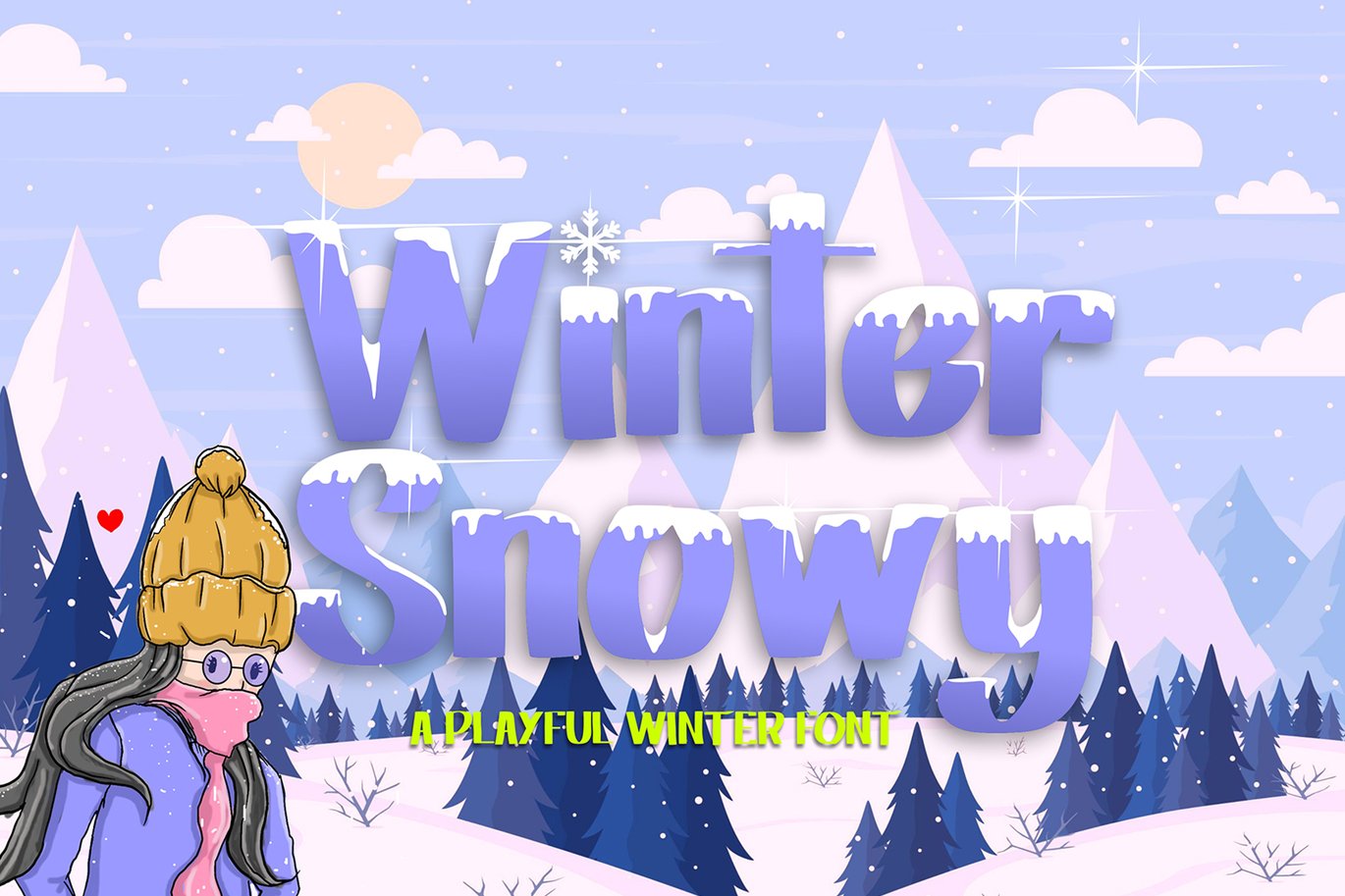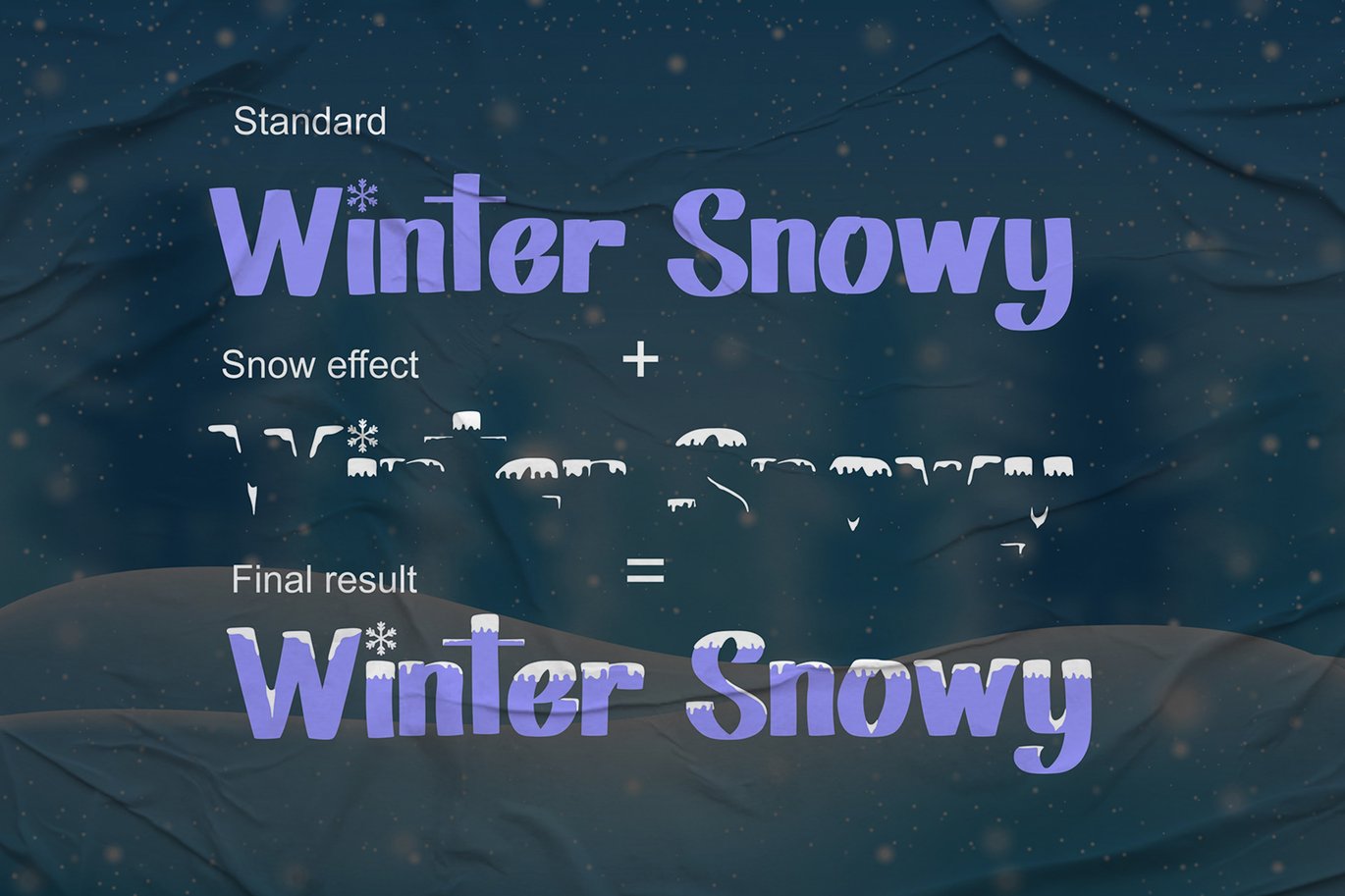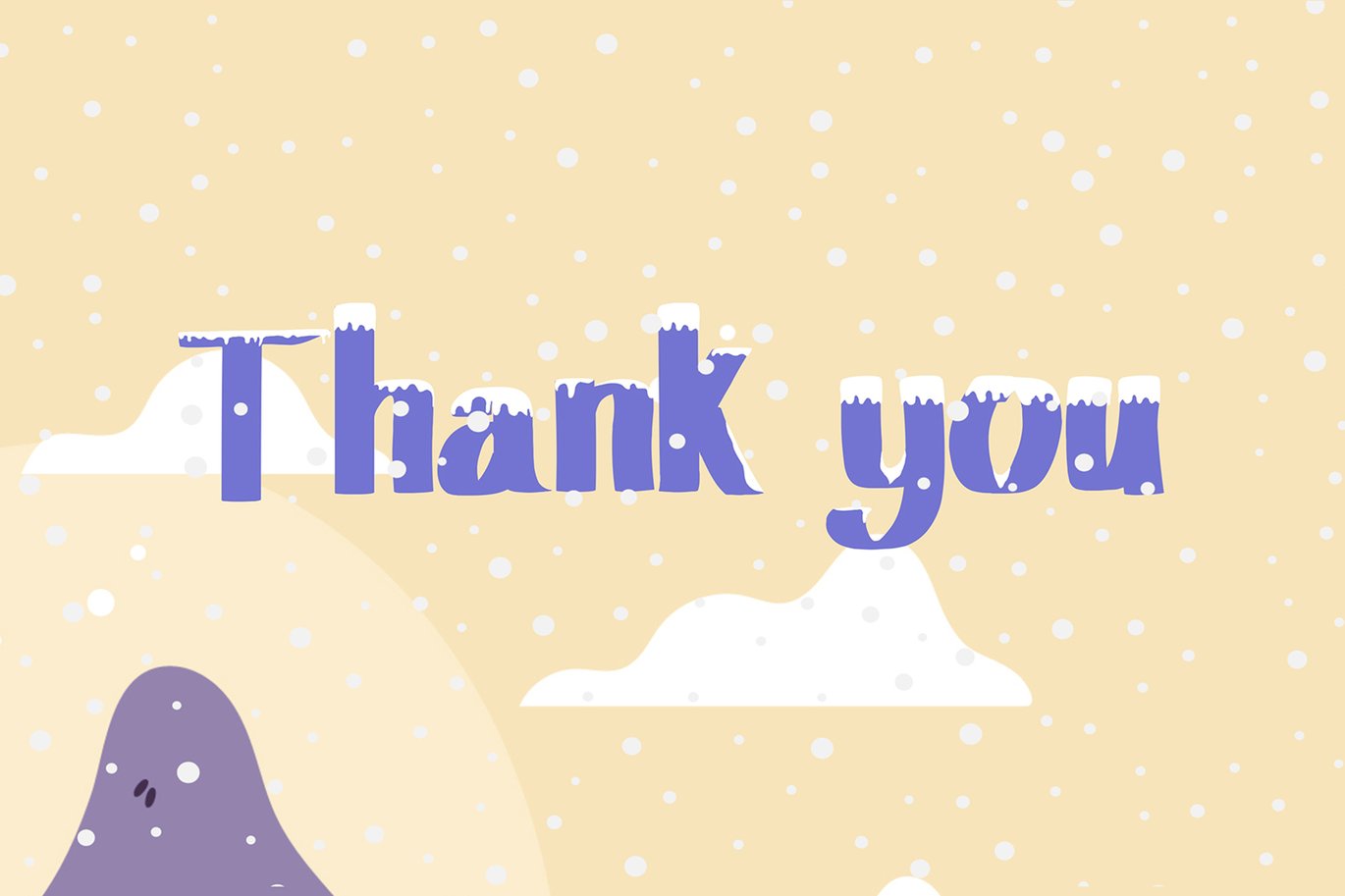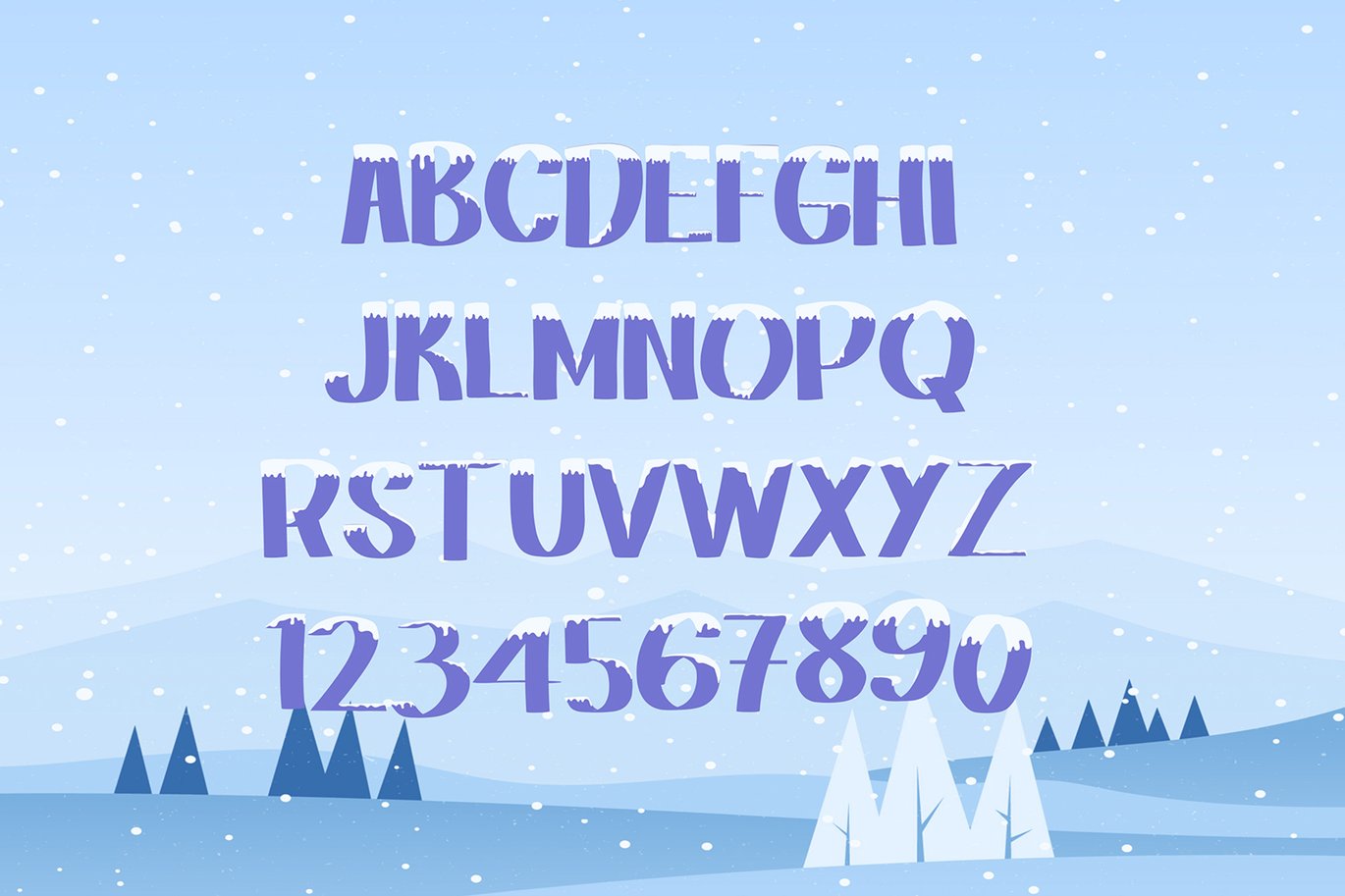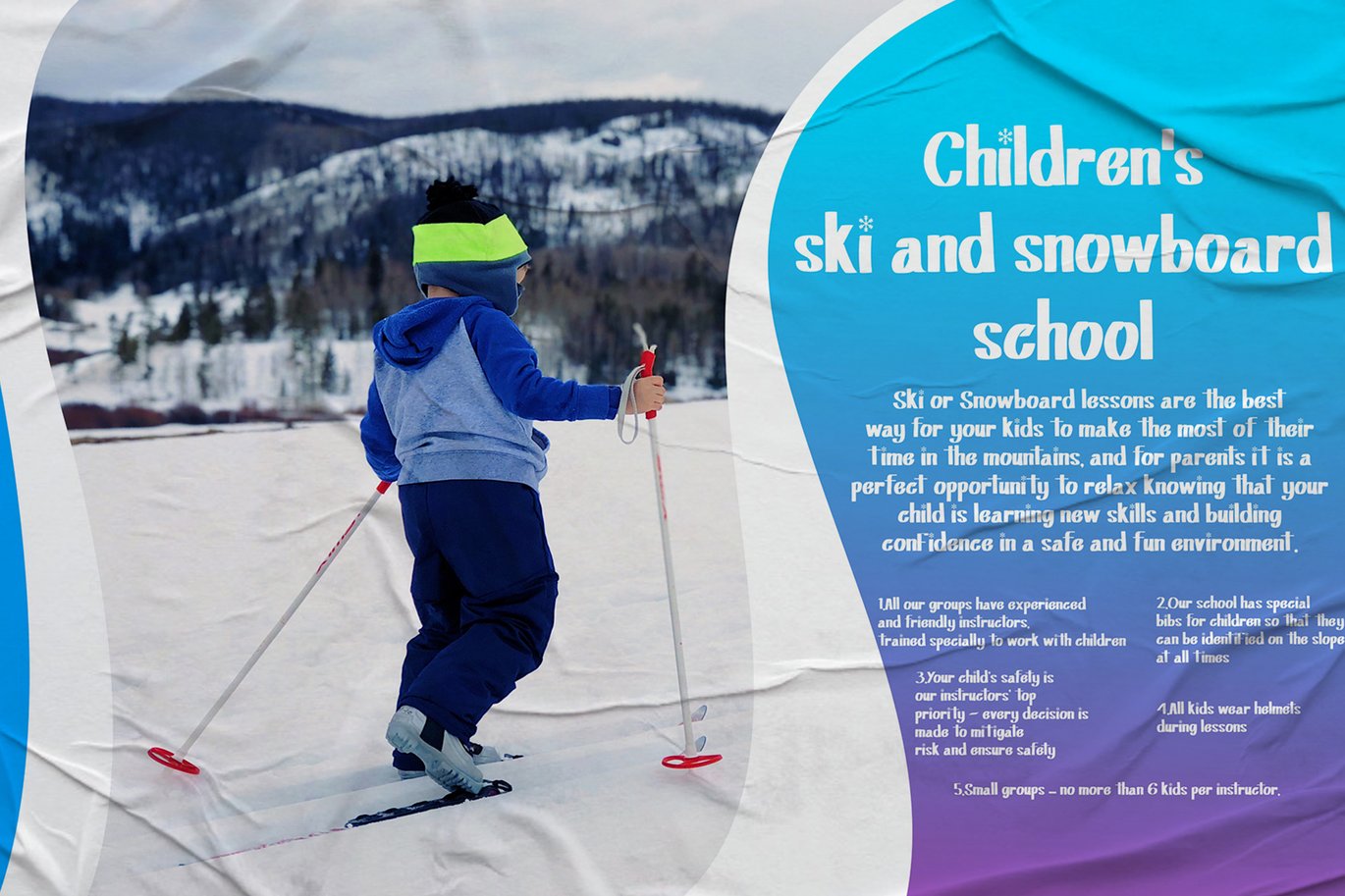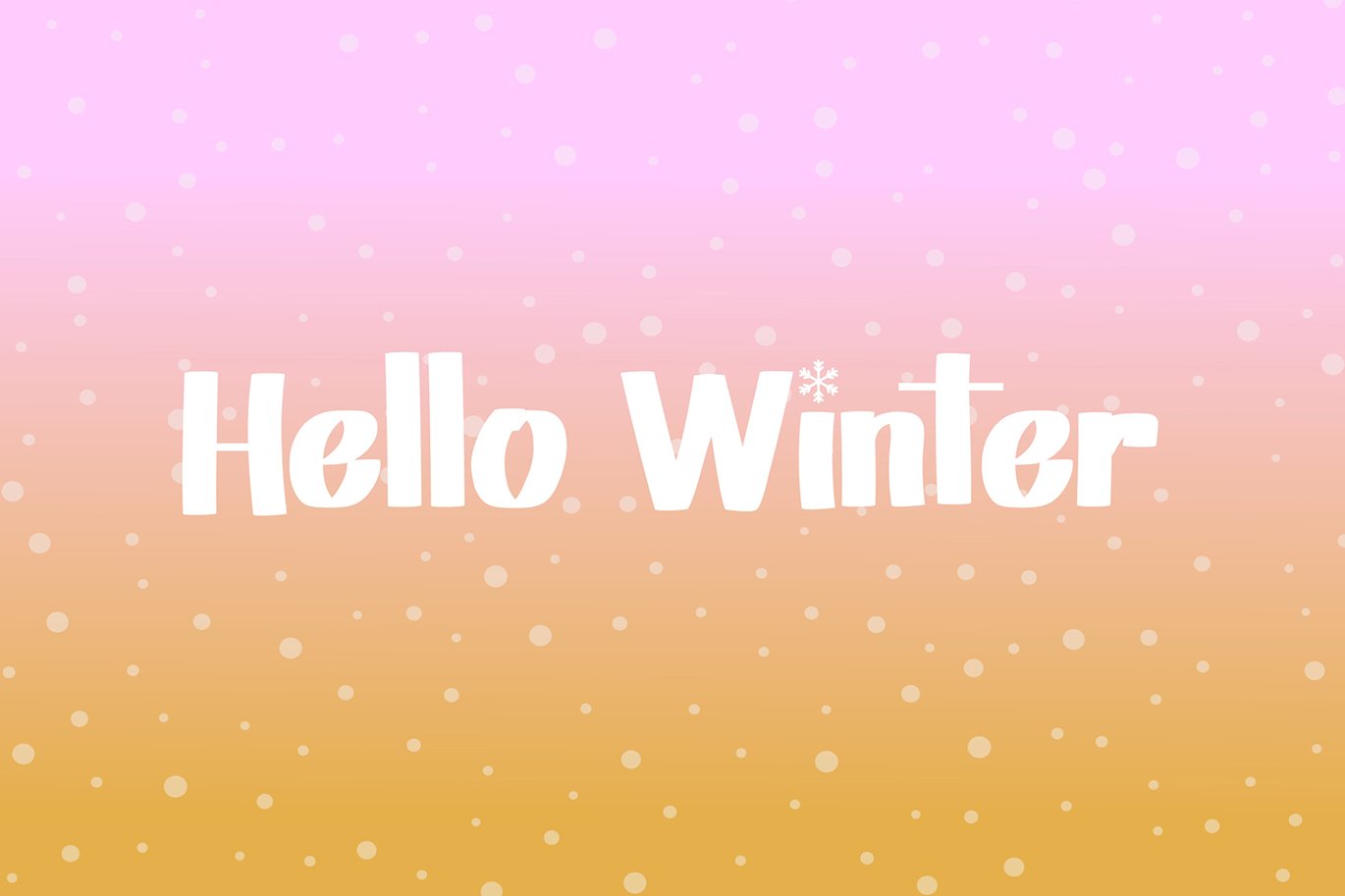
Winter Snowy – Decorative Font
Winter Snowy is a decorative font with a snow decoration on the top of the characters. It will elevate a wide range of design projects to the highest level, be it branding, headings, wedding designs, invitations, signatures, logotypes, wall art illustrations, labels, and much more!